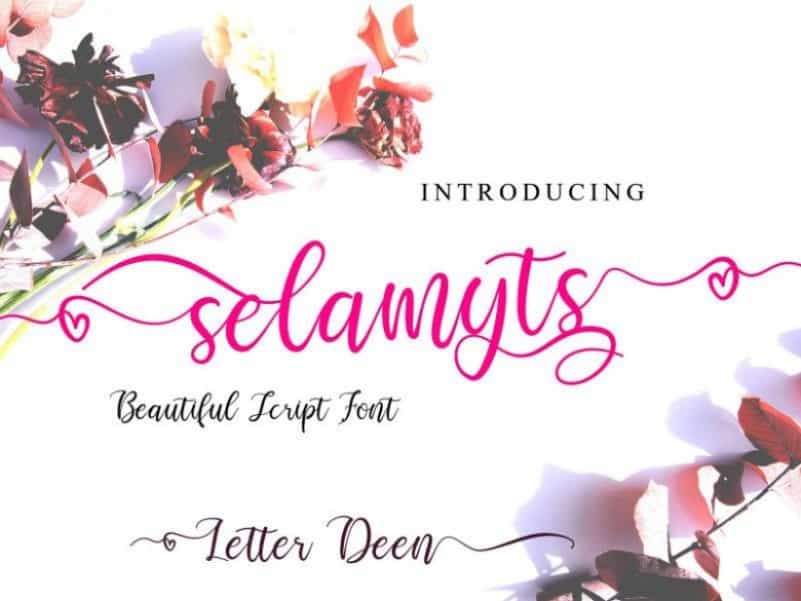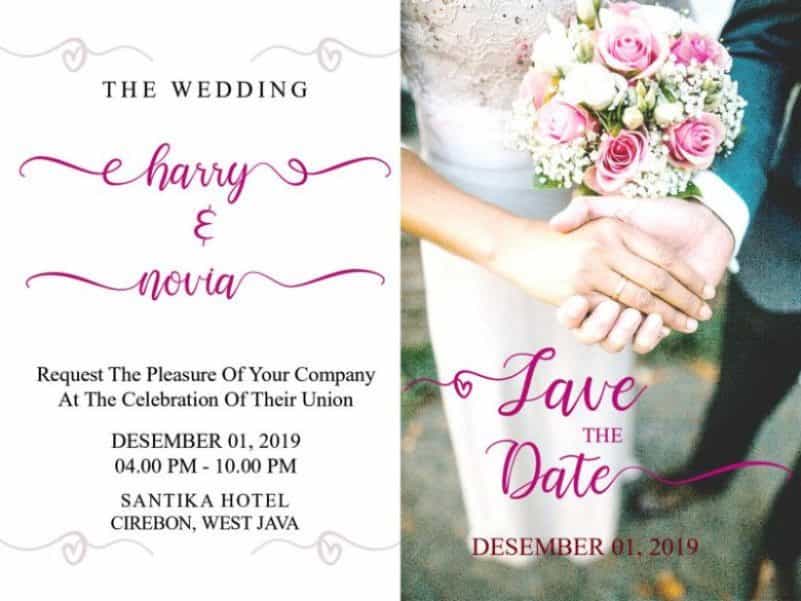
Selamyts Script Font is a typeface that has elements of script font with fine flowing lines. Indeed, it will add a romantic look to any crafting project!